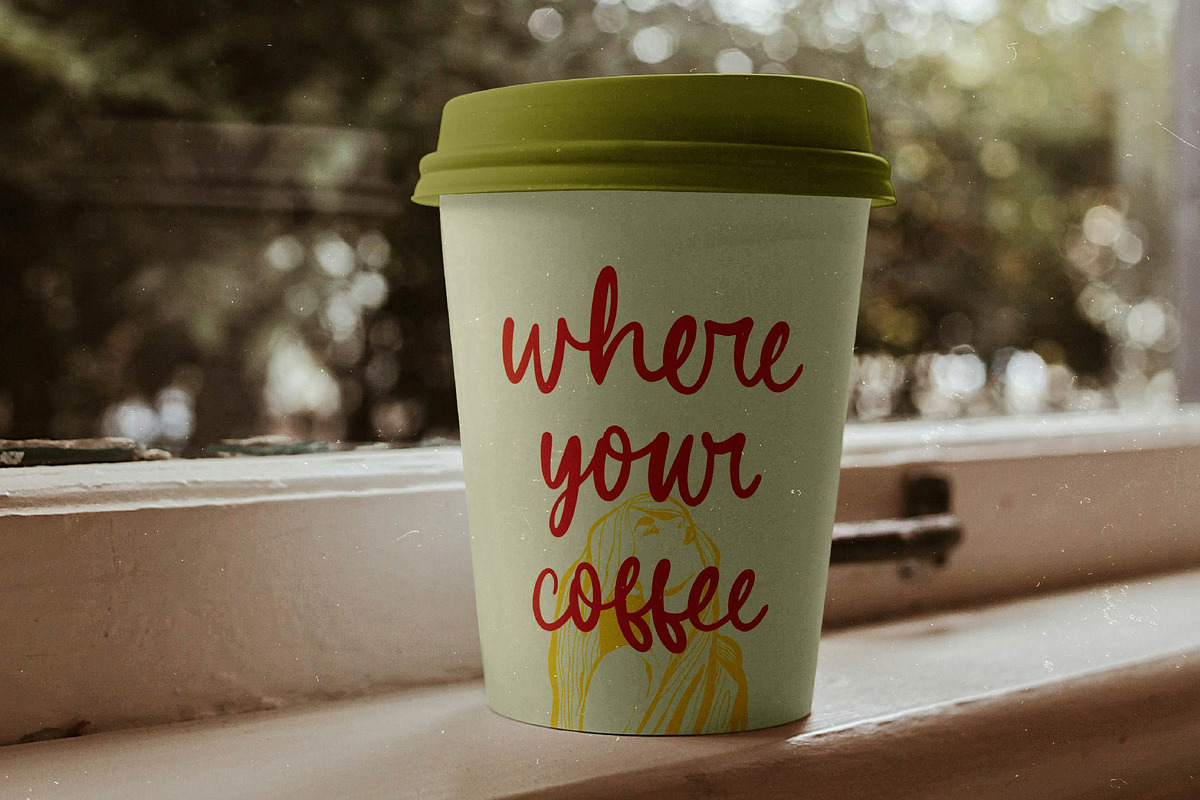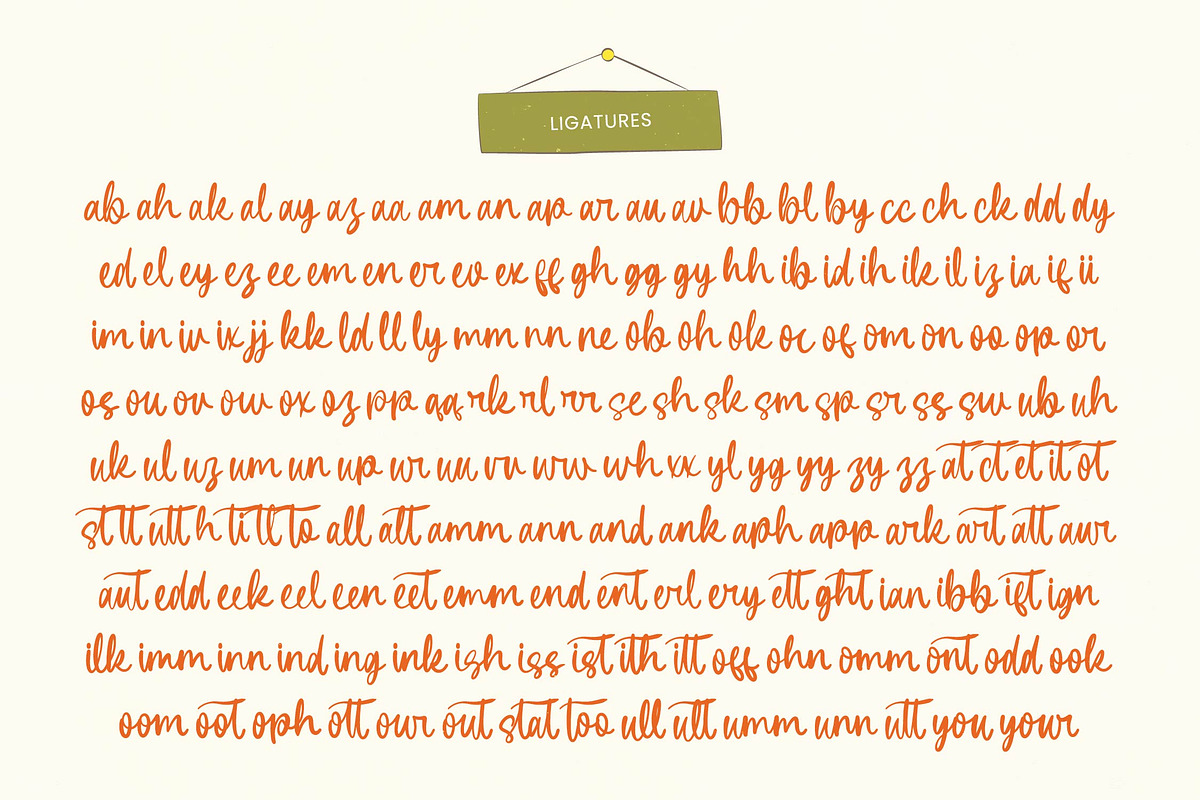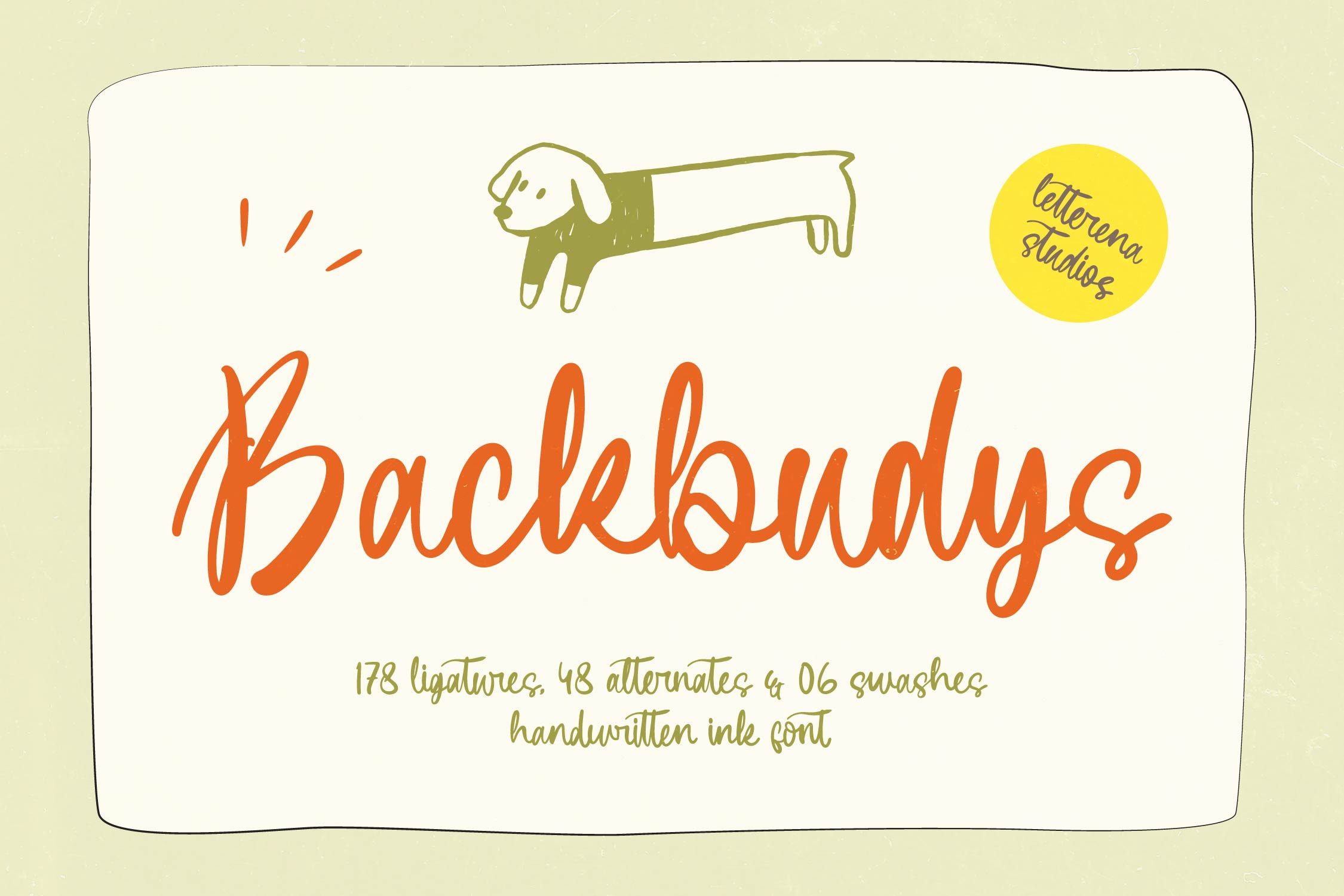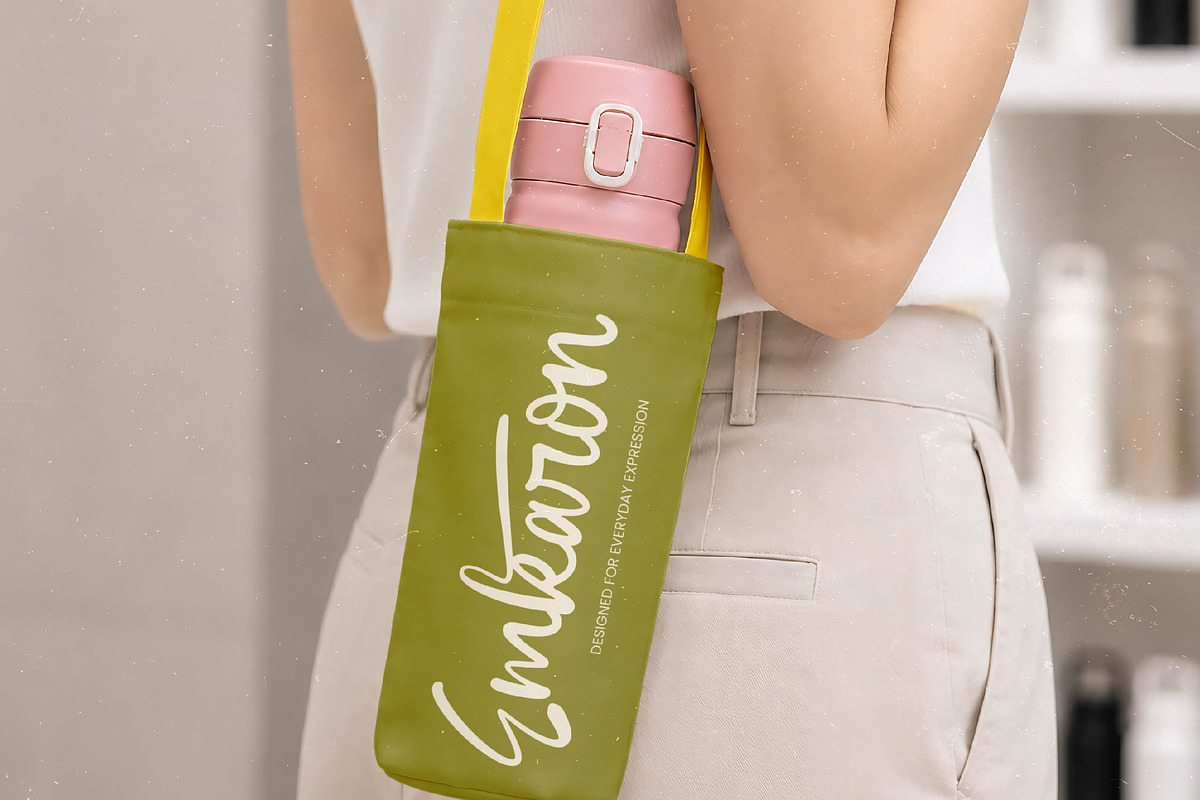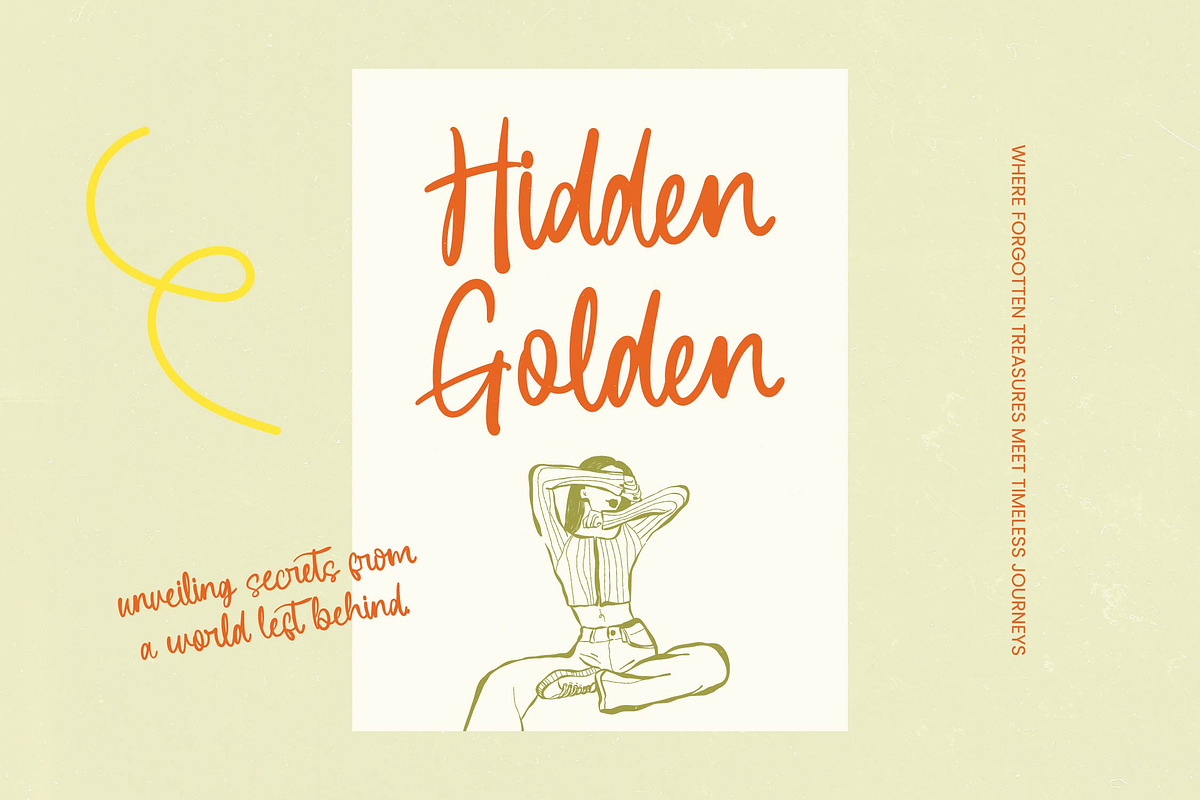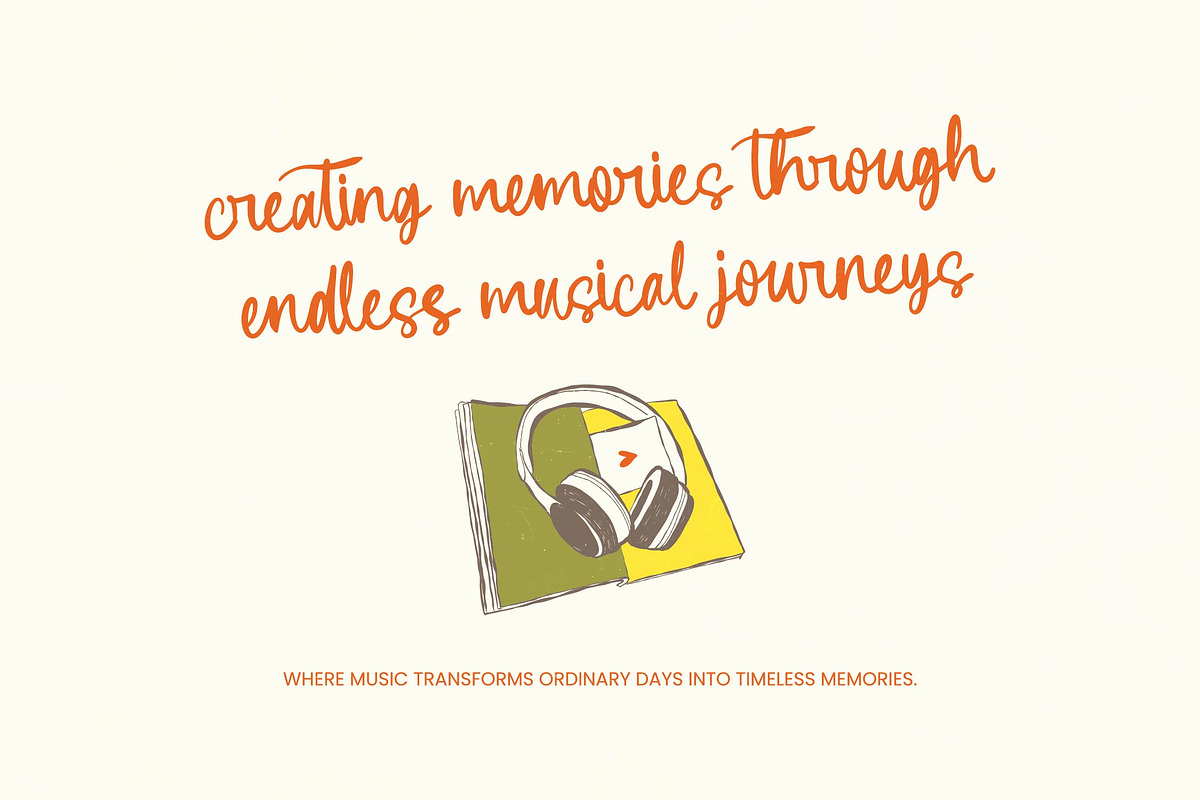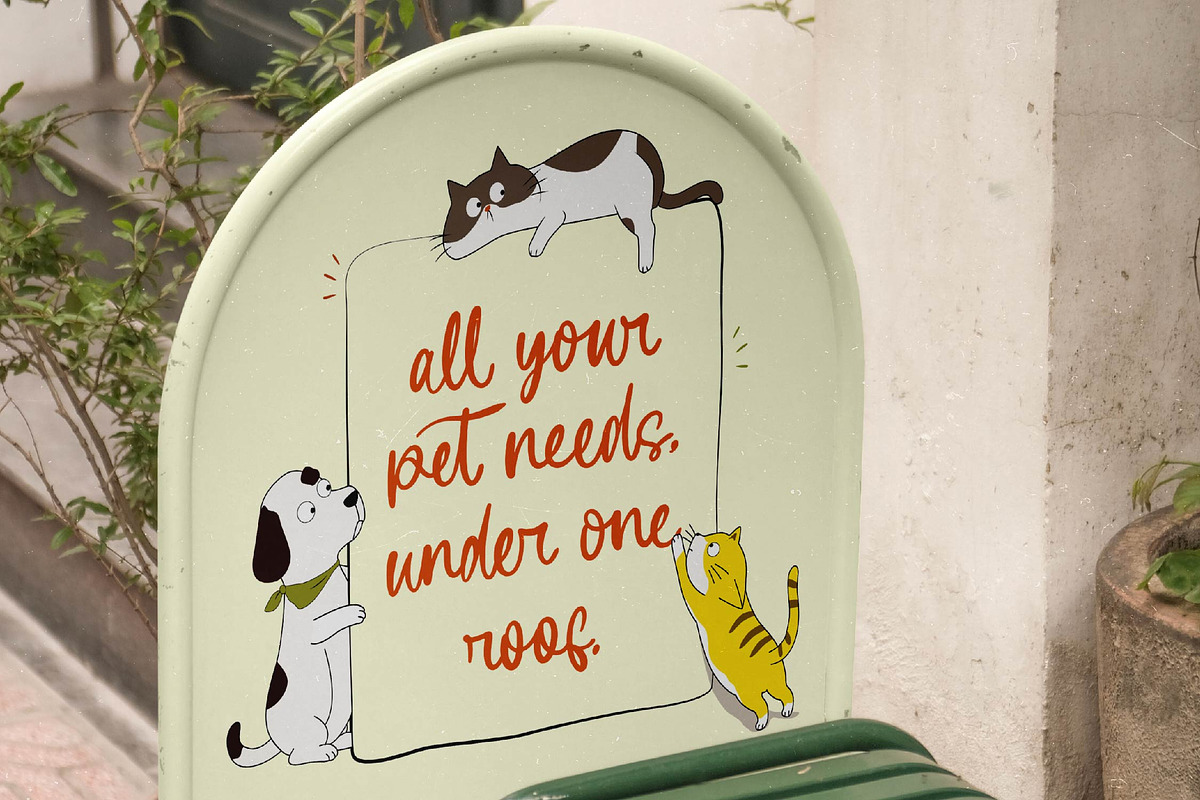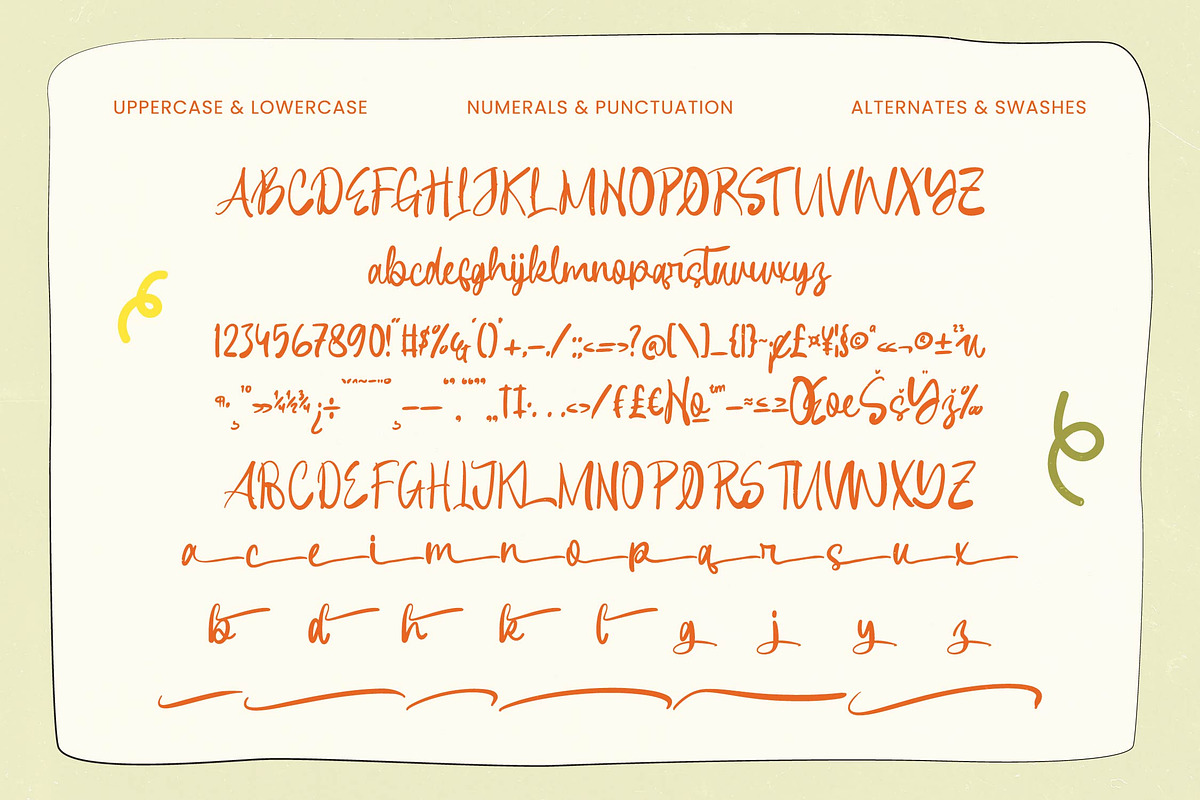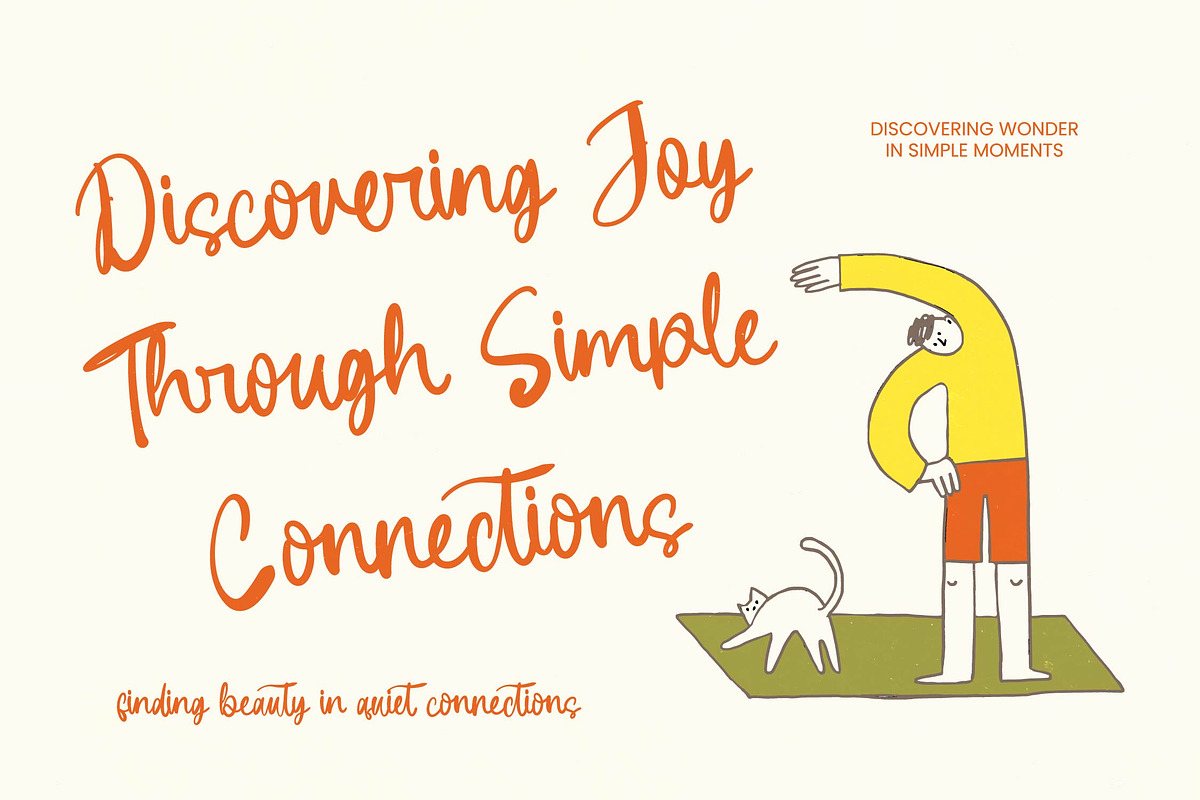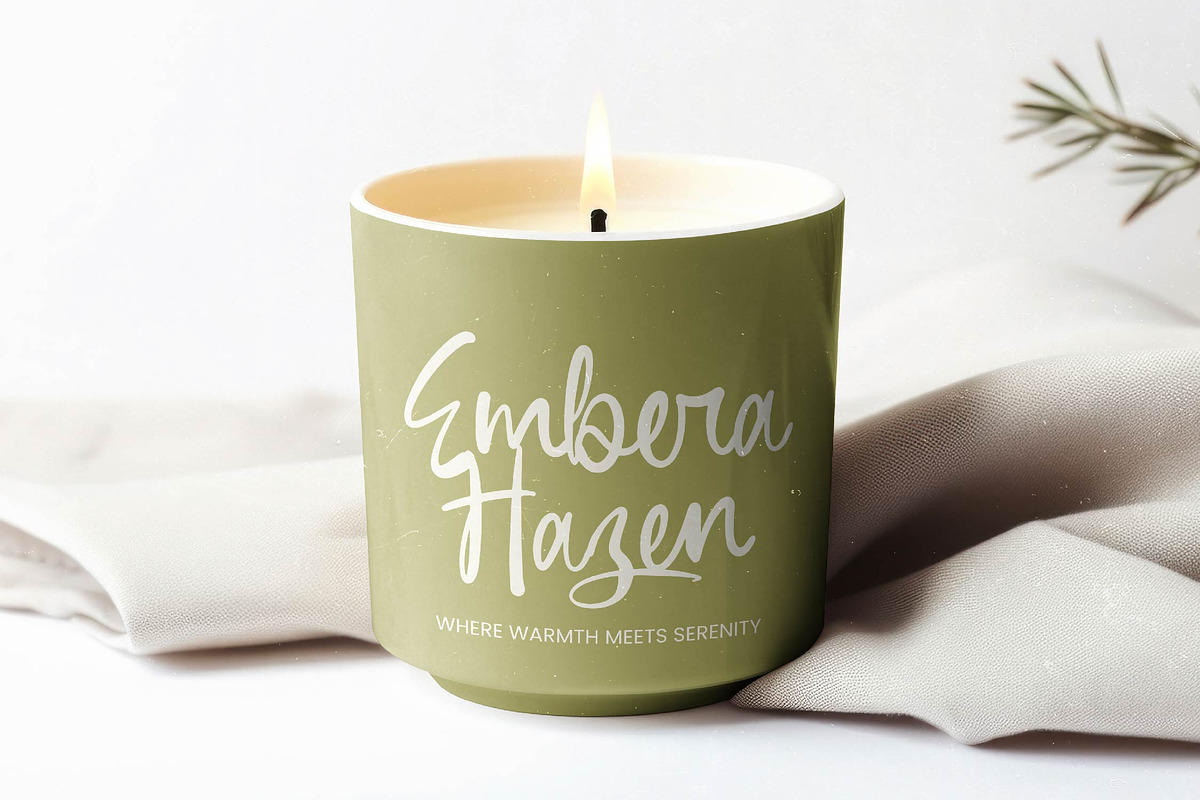
Backbudys Handwritten Ink Font
Backbudys - Handwritten Ink Font
Elevate your creative vision with an authentic, organic touch that resonates with modern audiences. Backbudys - Handwritten Ink Font is a masterfully crafted script that captures the essence of fluid ink strokes and natural penmanship. This premium typography solution offers a stunning hand-drawn aesthetic, perfect for designers looking to infuse their work with personality and artistic flair. With its balanced rhythm and expressive curves, it stands out as a top-tier choice for high-impact visual storytelling.
Unleash unparalleled creative flexibility through a rich library of OpenType features, including 178 ligatures and 48 alternates that ensure every word looks unique. With its extensive multilingual support, Backbudys - Handwritten Ink Font adapts seamlessly across global markets, making it incredibly versatile for international projects. This technical precision allows for a smooth, natural flow in any language, ensuring your brand message remains consistent and professional regardless of the geographical region.
Transform your brand identity with a font designed for diverse, high-end applications. Backbudys - Handwritten Ink Font is perfect for luxury branding, bespoke packaging design, and sophisticated editorial layouts. Its approachable yet refined character makes it equally effective for social media marketing, wedding invitations, and artisanal labels. Whether you are crafting a logo for a boutique or designing promotional graphics, this font provides the visual impact necessary to capture attention and leave a lasting impression.
Secure a competitive edge in the marketplace with a typeface that embodies authenticity and charm. Investing in Backbudys - Handwritten Ink Font means adding a powerful asset to your design toolkit that guarantees seamless integration into any professional project. Its unique blend of playfulness and professionalism drives commercial success by fostering a genuine connection with the target consumer. Choose Backbudys - Handwritten Ink Font to elevate your portfolio and ensure your creative projects are both memorable and visually superior.